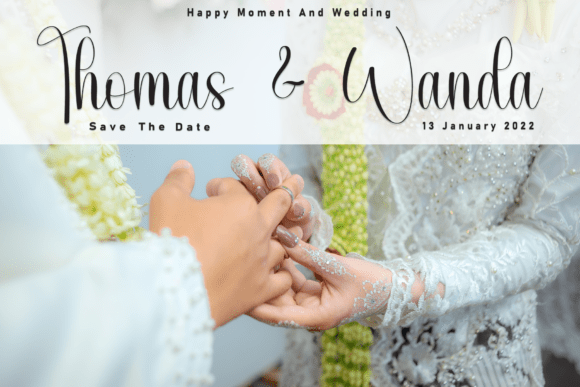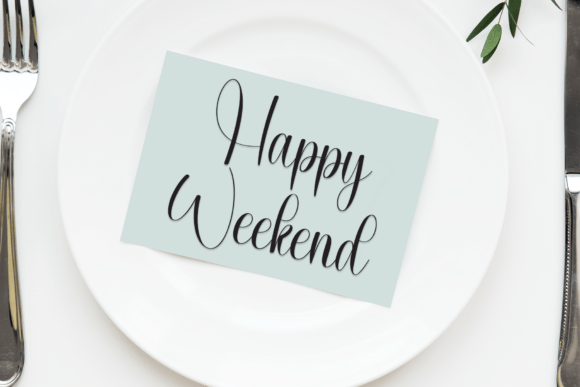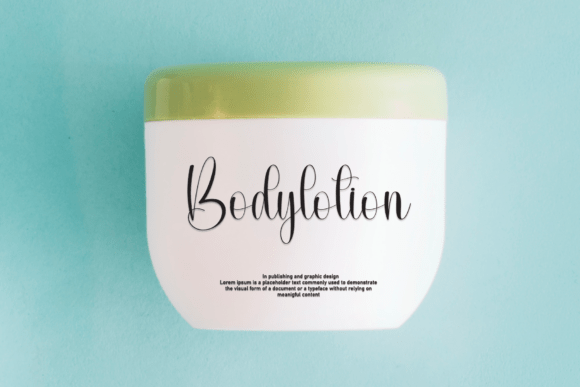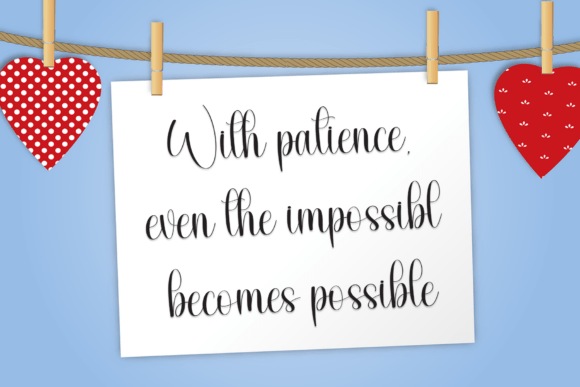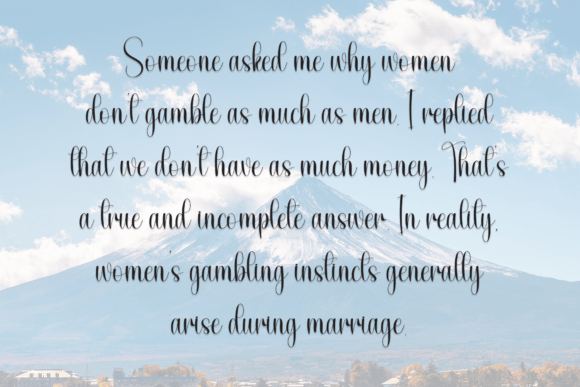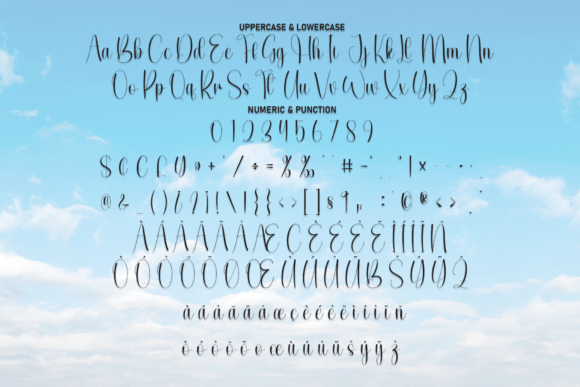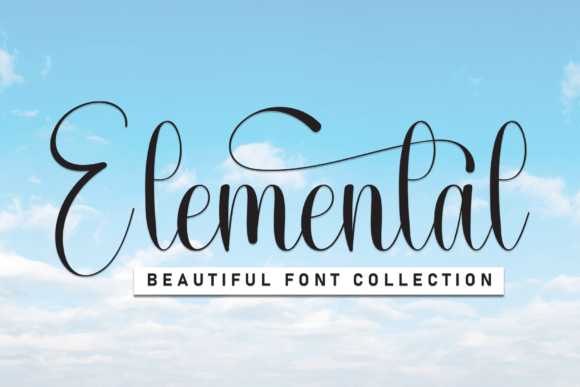
Introducing Elemental Font: The Quintessential Handwritten Display Font
Are you on the hunt for a font that exudes warmth, playfulness, and whimsy? Look no further than Elemental Font, a charmingly pleasant handwritten display font that’s sure to capture your heart. With its delightful persona and infectious charm, this font is perfect for designers and crafters seeking to add a touch of romance and fun to their projects.
The Essence of Playfulness and Warmth
Elemental Font is the epitome of playfulness and warmth, making it an ideal choice for romantic wedding invitations, heartfelt greetings, and any design that requires a dash of whimsical charm. This font is carefully crafted to evoke emotions and create a sense of connection with your audience. Whether you’re designing a wedding invitation, a greeting card, or a social media post, Elemental Font is sure to bring a smile to your face and your audience’s.
A Uniquely Fun Experience
What sets Elemental Font apart is its ability to deliver a uniquely fun experience with every stroke. This font is not just a collection of letters and symbols; it’s an experience that will make you and your audience feel like you’re part of a special moment. With its bouncy and irregular strokes, Elemental Font injects a sense of playfulness and spontaneity into your designs, making them truly unforgettable.
Elemental Font is a versatile font that’s perfect for designers and crafters of all levels. Whether you’re a professional designer or a DIY enthusiast, this font is easy to use and can be incorporated into a wide range of projects, including:
Key Features of Elemental Font
So, what makes Elemental Font so special? Here are some of its key features:
- Handwritten display font with a playful and whimsical feel
- Delightful persona that exudes warmth and friendliness
- Perfect for romantic and heartfelt designs
- Uniquely fun experience with every stroke
- Easy to use and versatile
Tips for Using Elemental Font
To get the most out of Elemental Font, here are some tips to keep in mind:
- Use it for headlines and titles to add a touch of whimsy and playfulness
- Pair it with other fonts to create a unique and interesting contrast
- Use it to create custom illustrations and graphics
In conclusion, Elemental Font is a charmingly pleasant handwritten display font that’s sure to capture your heart. With its delightful persona, playful feel, and whimsical charm, this font is perfect for designers and crafters seeking to add a touch of romance and fun to their projects. Whether you’re designing a wedding invitation, a greeting card, or a social media post, Elemental Font is sure to deliver a uniquely fun experience that will leave a lasting impression on your audience.